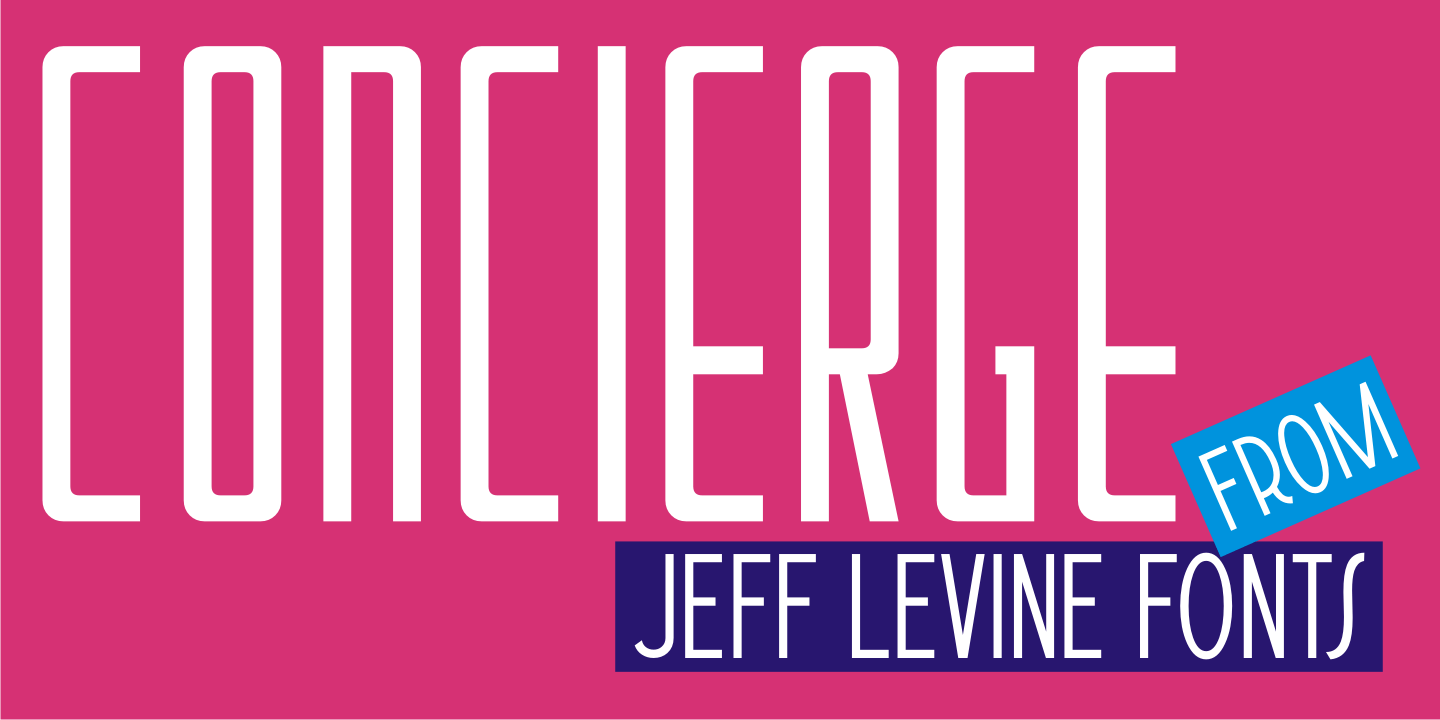
Concierge
On occasion, one type design's influence can result in a completely different end result.
Take the hand lettering found on a 1920s piece of sheet music for the song 'Let Me Call You Sweetheart”. The simple sans with a few Art Nouveau-inspired characters started out as the basic design of Concierge JNL, but shortly after beginning the project, the lettering took on more of an Art Deco flavor.
Add to this the many rounded-edge characters that have a bit of a techno look to it, the typeface takes on many different design characteristics.